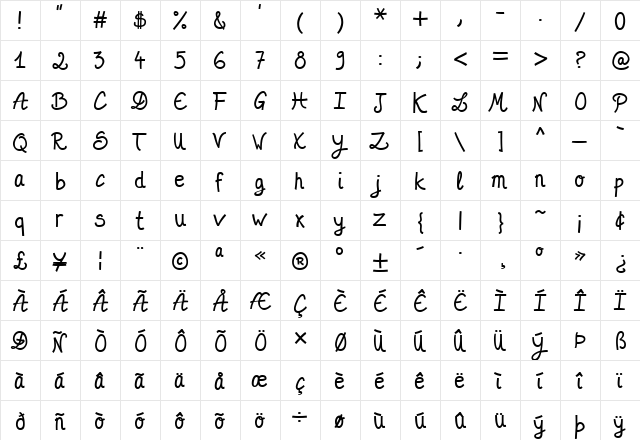
Desard Regular
Design Context for Desard Typeface
Desard is a composed and adaptable typeface that performs quietly and consistently across a wide range of design contexts.